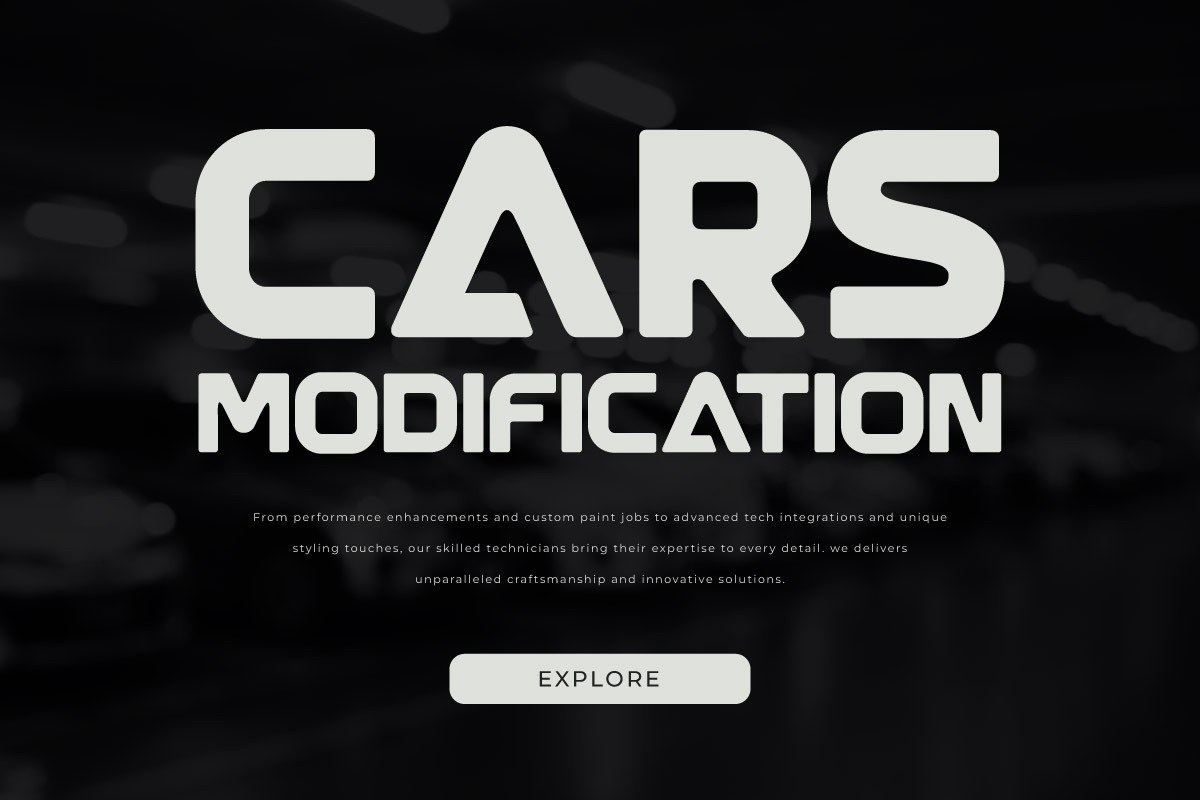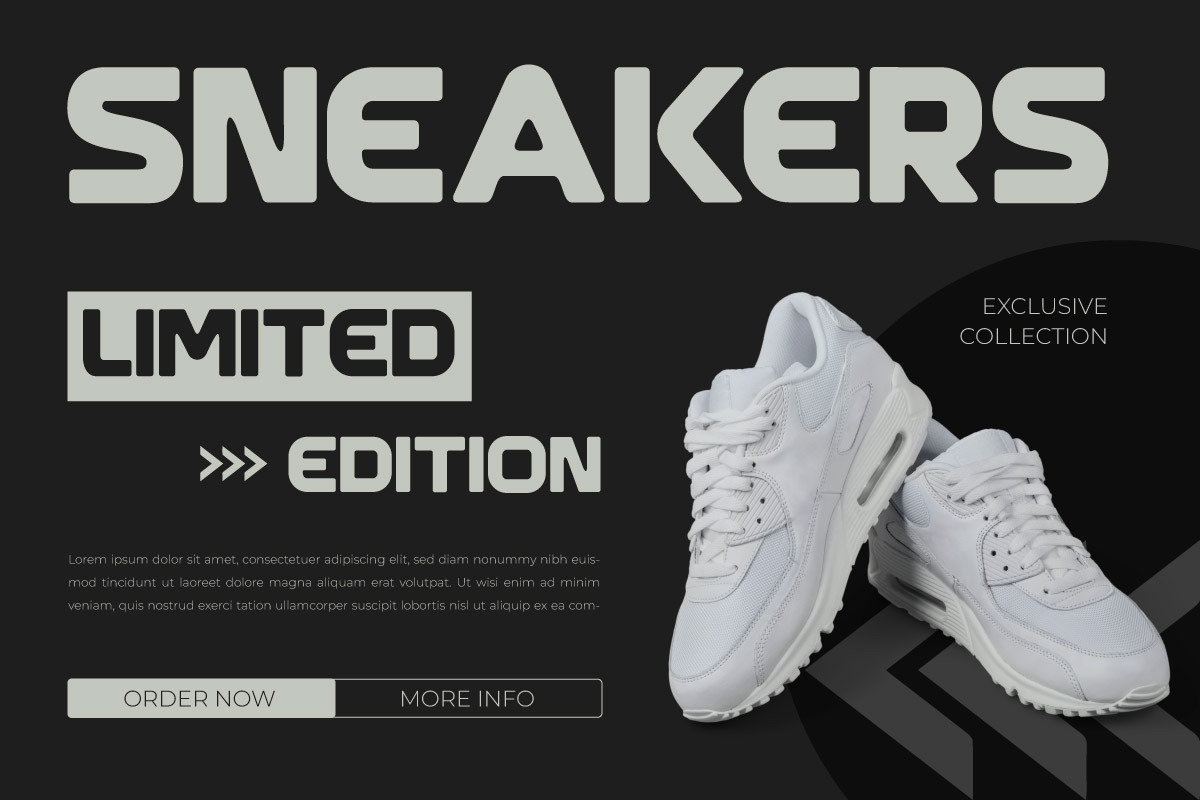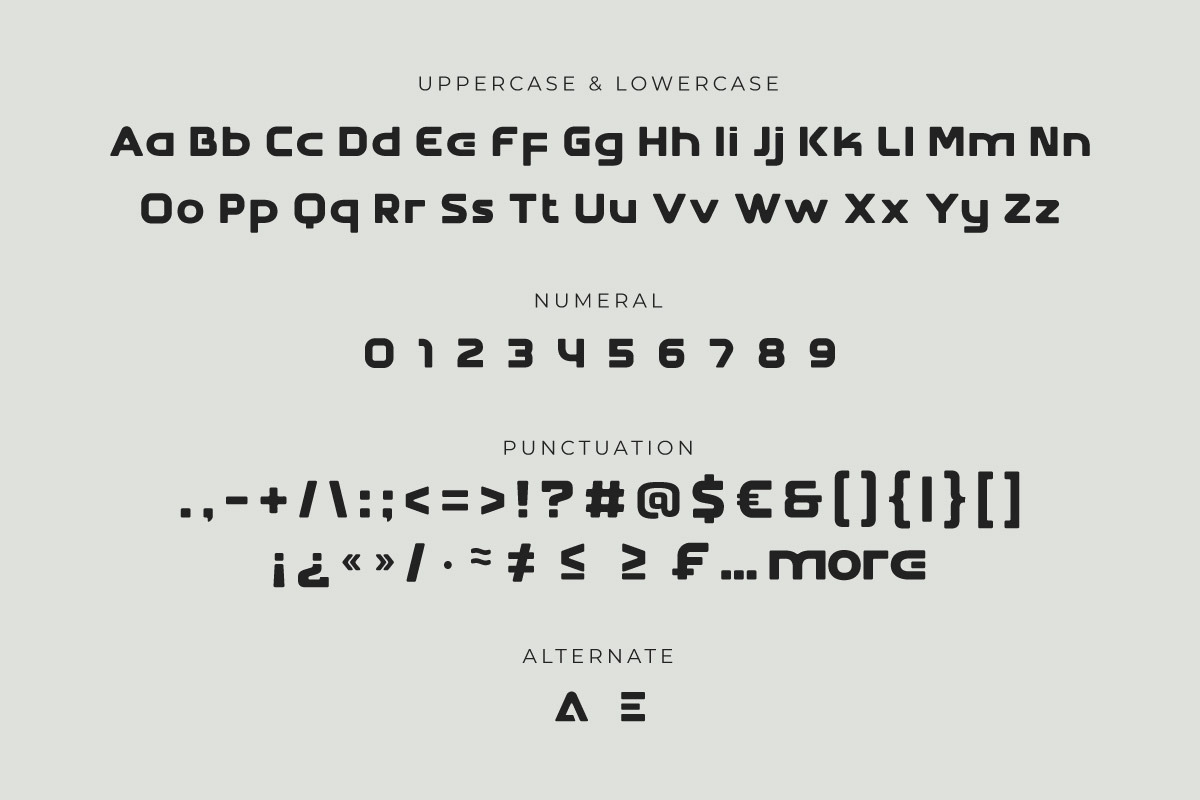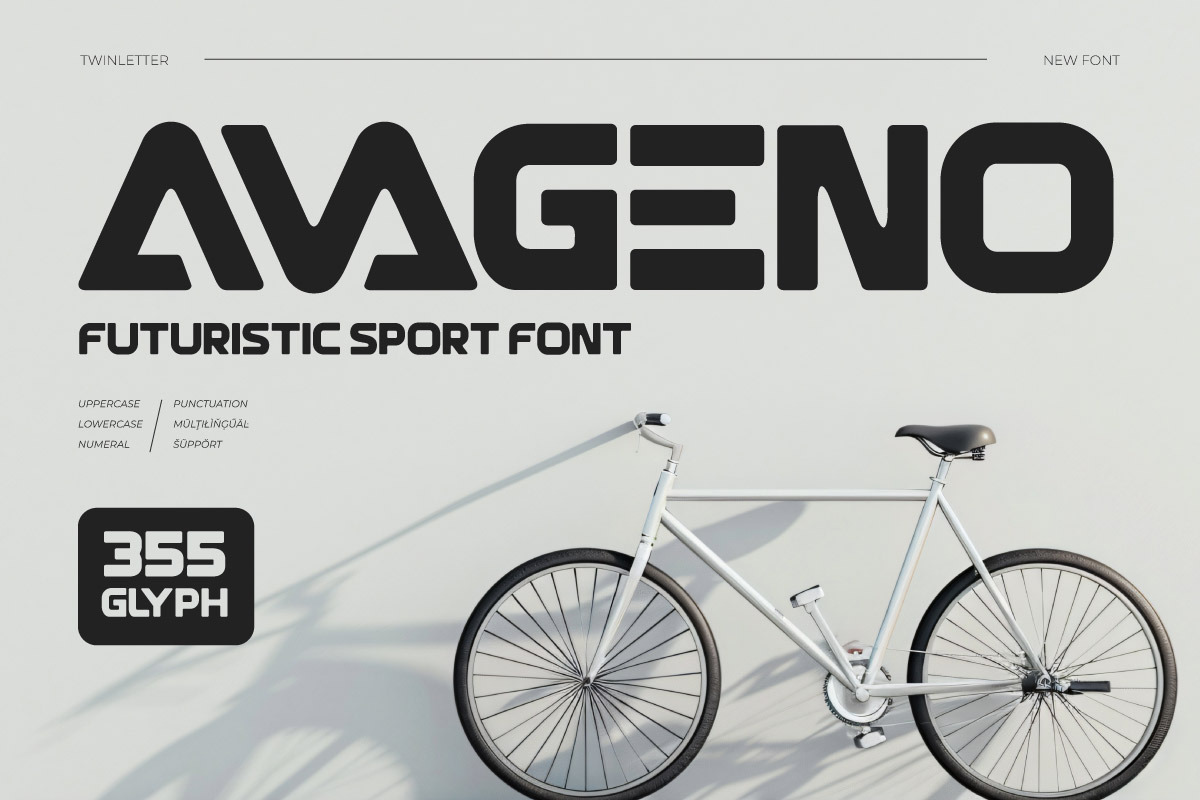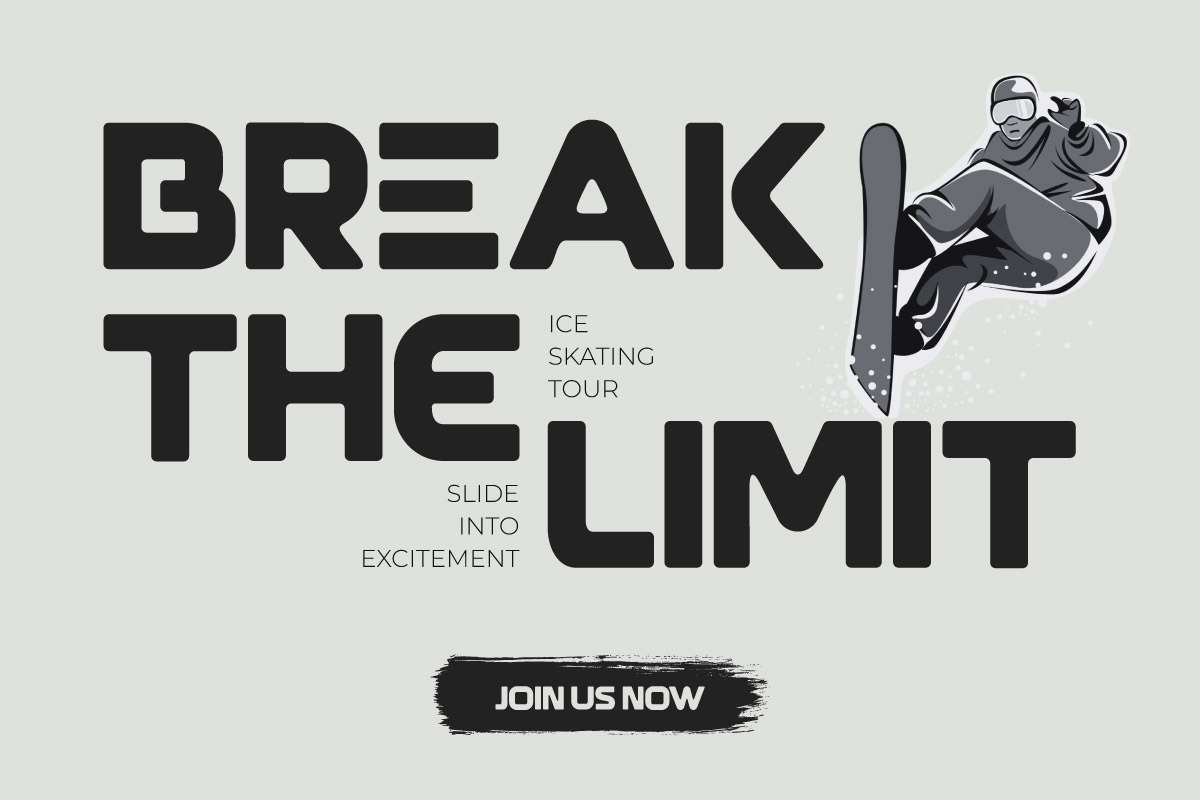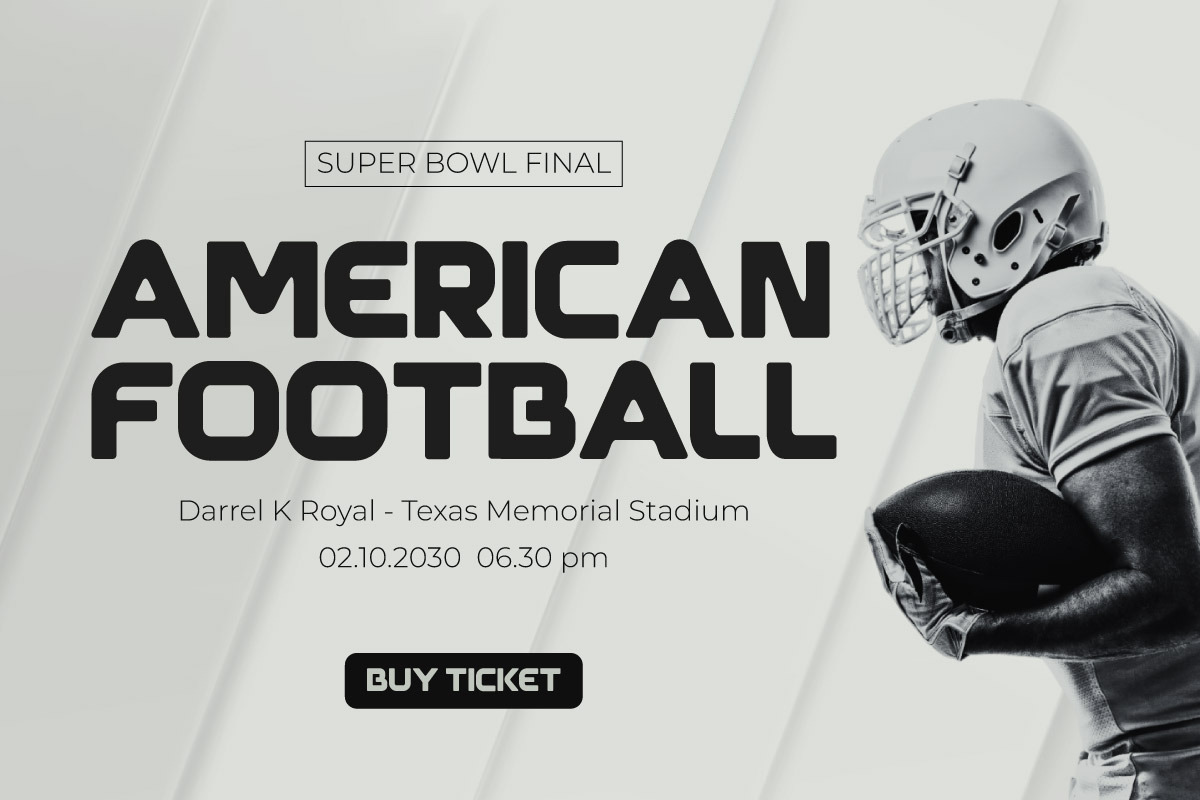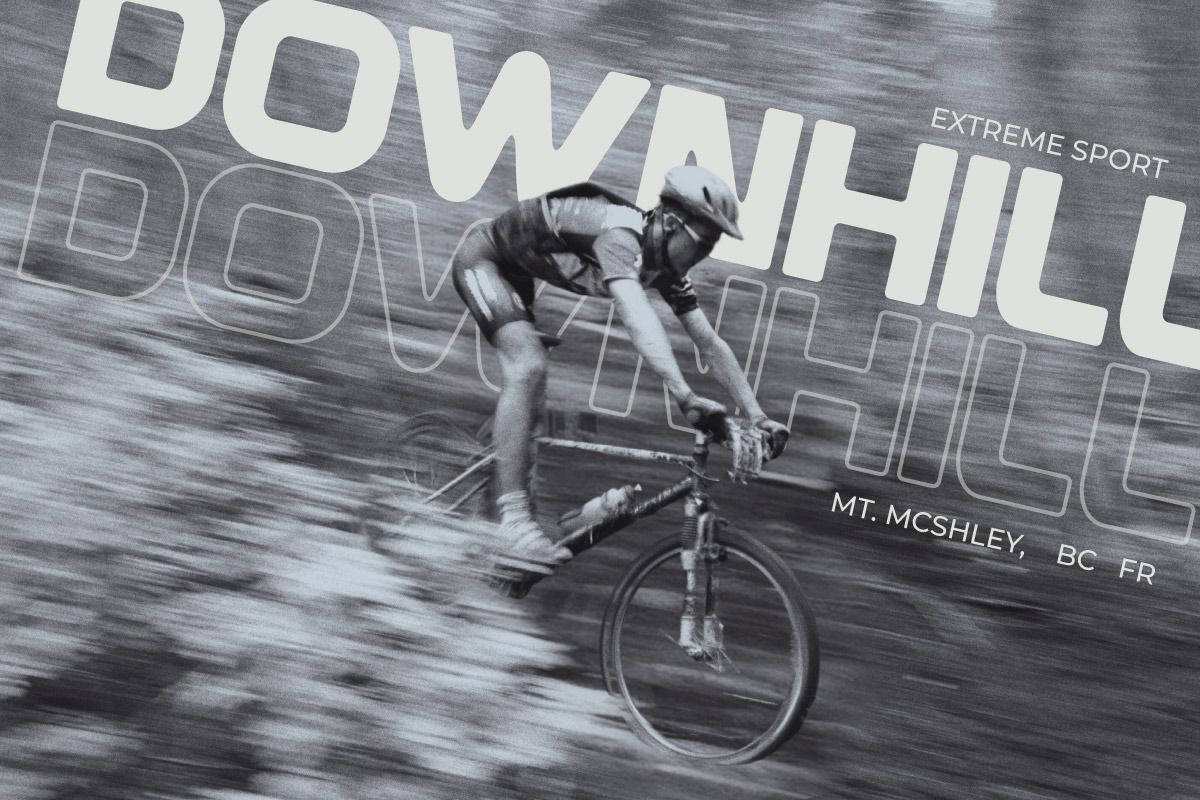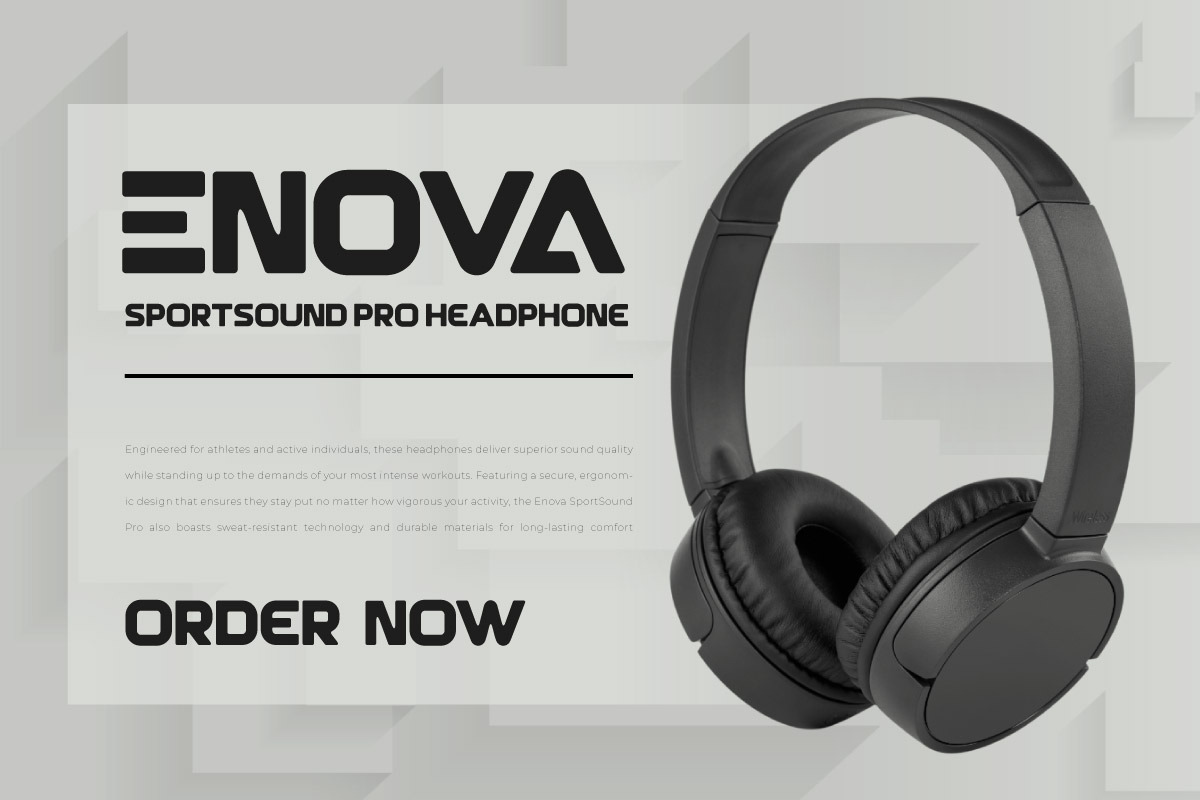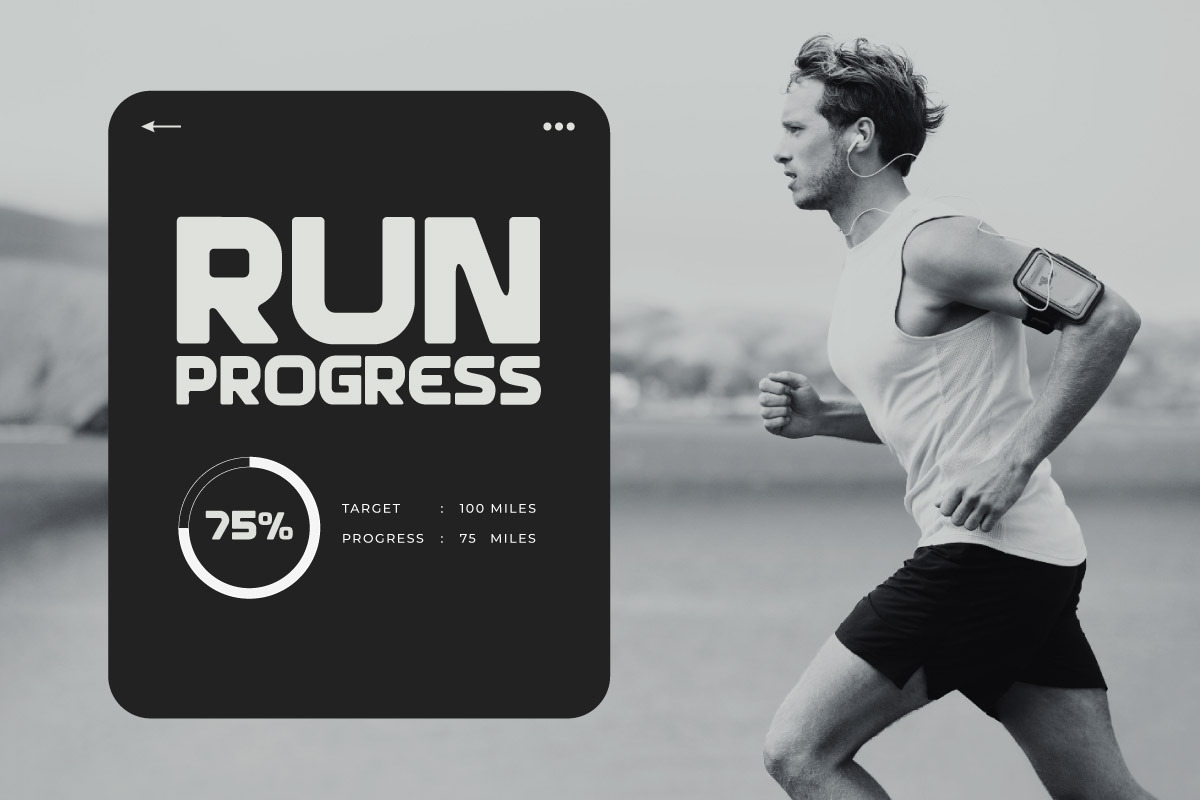
Avageno - Futuristic Font
Step into the future with Avageno, a sleek and cutting-edge Futuristic Font designed to propel your projects into a world of innovation and technology. Perfect for sci-fi movie posters, tech brand logos, futuristic UI designs, and digital artworks, Avageno boasts sharp, clean lines and a modern aesthetic that captures the essence of the future. Its bold and dynamic letterforms make it ideal for creating attention-grabbing headlines, impactful branding, and immersive visual experiences.
Avageno is designed to stand out in a world driven by technology, offering versatility for both print and digital applications. Whether you’re working on a high-tech product launch or a creative futuristic project, Avageno brings sophistication and a forward-thinking vibe that enhances your design’s cutting-edge appeal.
Unlock the future of design with Avageno, the font that brings sleek modernity and innovation to your creative projects.